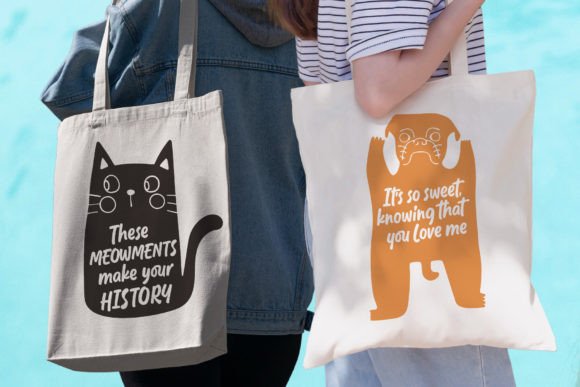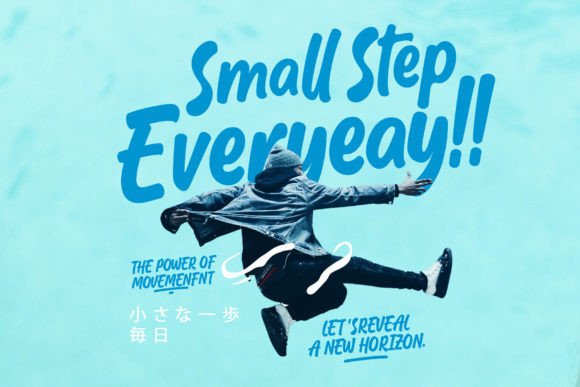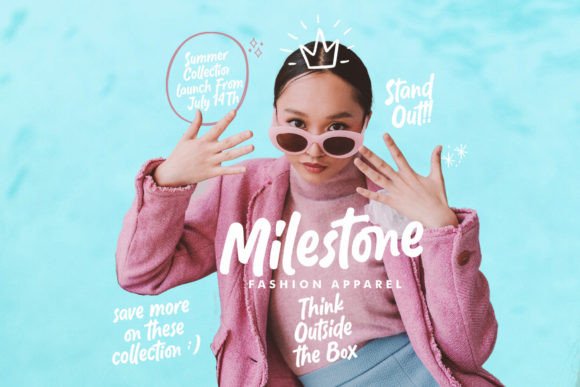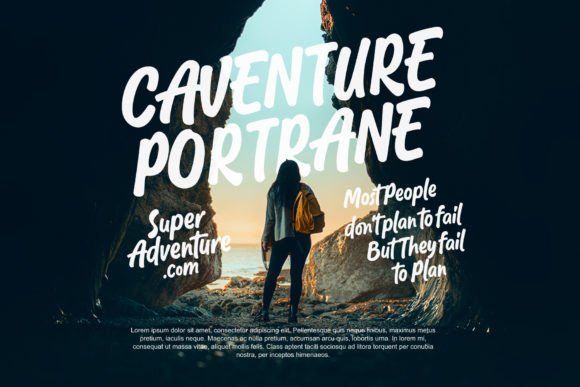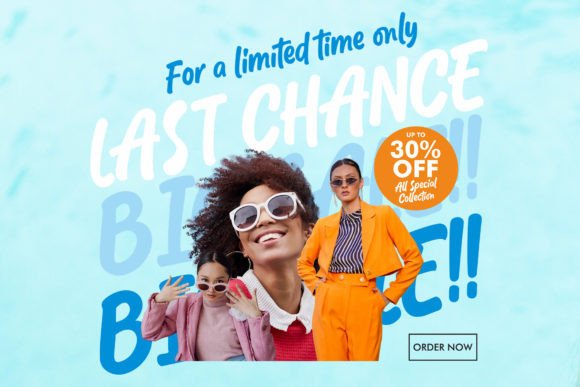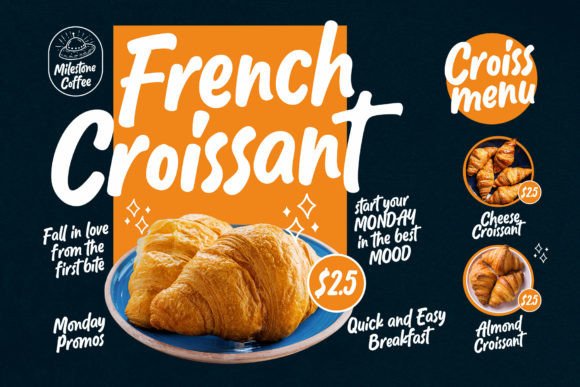
Discover the Charm of Clouts! Font: Elevate Your Designs with a Human Touch
In the world of typography, few fonts manage to capture the essence of human charm and character. Clouts! Font is one such gem that brings a refreshing breeze to the design landscape. With its unique imperfections and subtle variations, this font is poised to revolutionize the way you approach your creative projects. Whether you’re a designer, craftsperson, or simply someone who appreciates the art of typography, Clouts! Font is sure to captivate you.
The Allure of Imperfections: What Makes Clouts! Font Stand Out
Clouts! Font boasts a distinctive charm that sets it apart from more conventional typefaces. Its characters are not just letters; they are expressions of personality and emotion. The charming imperfections and subtle variations in Clouts! Font breathe life into your text, giving it a truly human touch. These quirks and eccentricities make your text more relatable and engaging, allowing your audience to connect with your message on a deeper level.
Versatility at Its Best: Adapting to Any Creative Concept
One of the most significant advantages of Clouts! Font is its incredible versatility. Whether you’re designing captivating ad campaigns, eye-catching posters, or stunning social media graphics, Clouts! Font is the perfect companion. Its adaptability allows it to effortlessly blend into any creative concept, elevating your message and giving it a distinctive touch that sets you apart from the crowd.
Enhance Your Ad Campaigns with Clouts! Font
In the competitive world of advertising, standing out is crucial. Clouts! Font offers a unique opportunity to make your ad campaigns more memorable. Its distinctive characters and subtle imperfections draw attention and create a lasting impression. By incorporating Clouts! Font into your ads, you can add a touch of personality that resonates with your audience and sets your brand apart.
Create Stunning Posters with Clouts! Font
Posters are a fantastic way to communicate a message, and the right font can make all the difference. Clouts! Font brings a level of sophistication and charm to your posters that is hard to achieve with more generic typefaces. Its unique character and versatility ensure that your posters not only grab attention but also convey your message with clarity and style.
Elevate Your Social Media Graphics with Clouts! Font
In the digital age, social media is a vital platform for communication and expression. Clouts! Font can help you elevate your social media graphics, making them more engaging and distinctive. Whether you’re creating Instagram posts, Facebook updates, or Twitter headers, Clouts! Font adds a touch of personality that can help you connect with your audience and stand out in a crowded feed.
Why Designers and Crafters Love Clouts! Font
Designers and crafters appreciate fonts that offer more than just a means to convey information; they look for typefaces that add an emotional layer to their work. Clouts! Font delivers exactly that. Its unique characters and imperfections make it a favorite among creatives who seek to infuse their projects with a human touch. With Clouts! Font, designers can create more engaging, relatable, and memorable designs that resonate with their audience.
In conclusion, Clouts! Font is more than just a typeface; it’s a tool for creative expression. Its charming imperfections, subtle variations, and versatile nature make it an invaluable asset for designers and crafters alike. By choosing Clouts! Font, you’re not just selecting a font; you’re embracing a design philosophy that values individuality, creativity, and human connection. So why settle for ordinary when you can create something extraordinary with Clouts! Font?